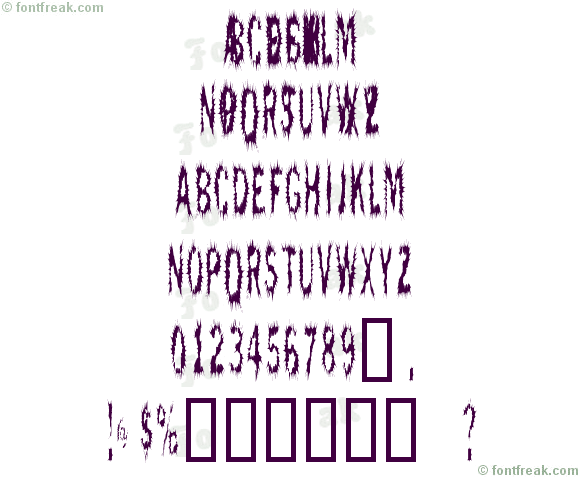
ScaredyCat
The ScaredyCat font by Marty Bee is a captivating display typeface that embodies a whimsical yet eerie aesthetic, perfect for projects aimed at evoking a playful sense of fright. This font falls into the decorative category, characterized by its jagged, uneven edges that create the impression of hastily scratched letters. The stroke weight varies throughout the characters, showcasing a light contrast that adds to its quirky charm. The spacing between the letters is intentionally irregular, enhancing the hand-drawn feel that makes it stand out as a unique choice for various creative applications.
Ideal for use in Halloween-themed invitations, spooky event posters, or even children's book covers, the ScaredyCat font is versatile enough to add character to restaurant menus featuring playful dishes or quirky cafés. Graphic designers and content creators will find this font a delightful addition to their toolkit, especially when aiming to capture attention with a lighthearted twist on traditional themes. Small business owners, particularly those in creative industries, can use this font to convey a fun brand personality, attracting customers looking for something different.
What truly sets the ScaredyCat font apart is its ability to combine a sense of whimsy with a hint of spookiness, making it perfect for projects that require an engaging and memorable visual identity. The unique design elements invite curiosity and encourage exploration, making it a fantastic choice for anyone looking to infuse their work with character. Don’t miss out on the opportunity to incorporate this distinctive typeface into your designs—ScaredyCat font free download is available for those ready to unleash their creativity.